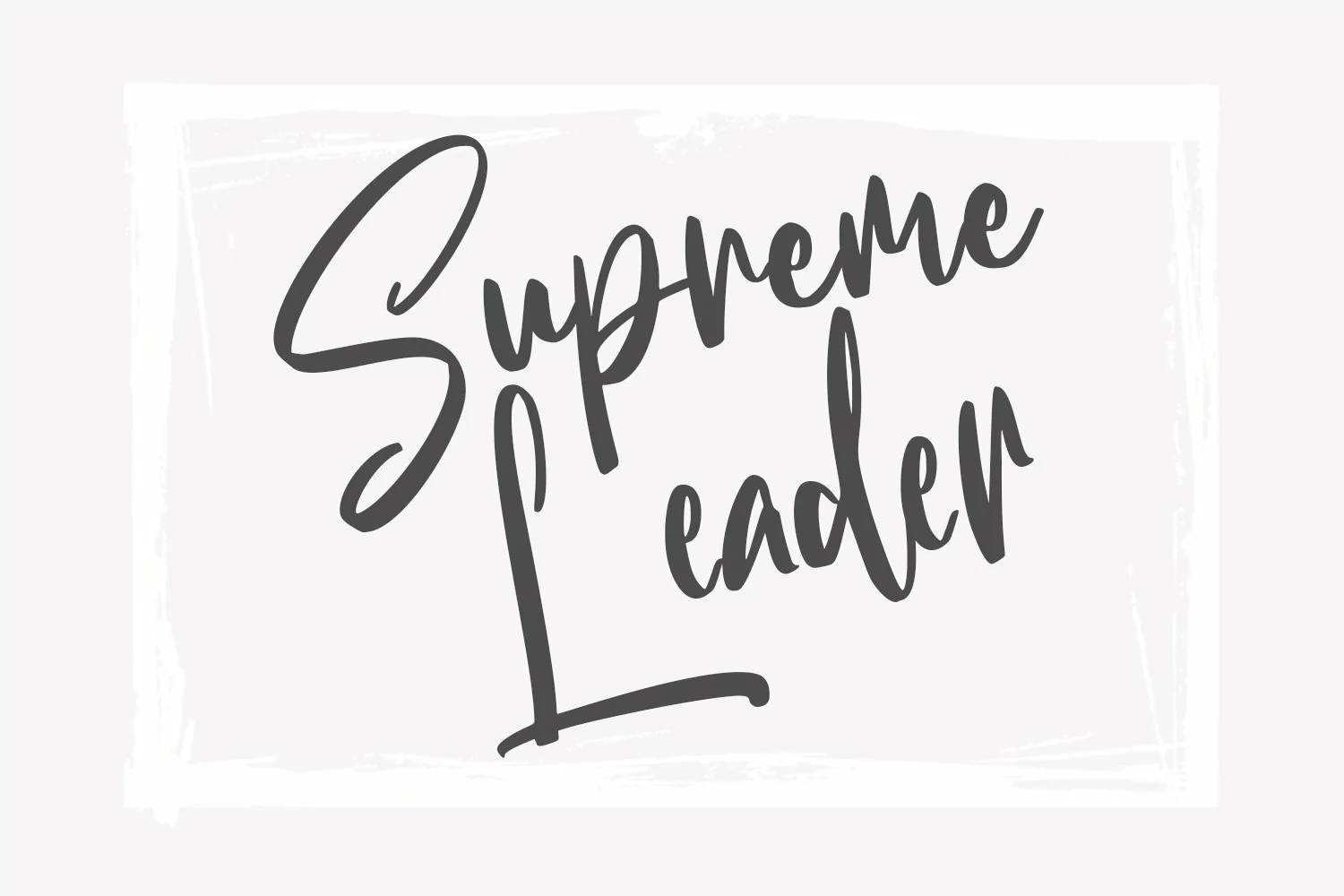
Allore Valore is a fancy handwritten script font. With high contrast stroke, fun character with a bit of ligatures and alternates. To give you an extra creative work. Allore Valore font support multilingual more than 100+ language. This font is good for logo design, Social media, Movie Titles, Books Titles, a short text even a long text letter and good for your secondary text font with sans or serif. Make a stunning work with Allore Valore font.
Allore Valore